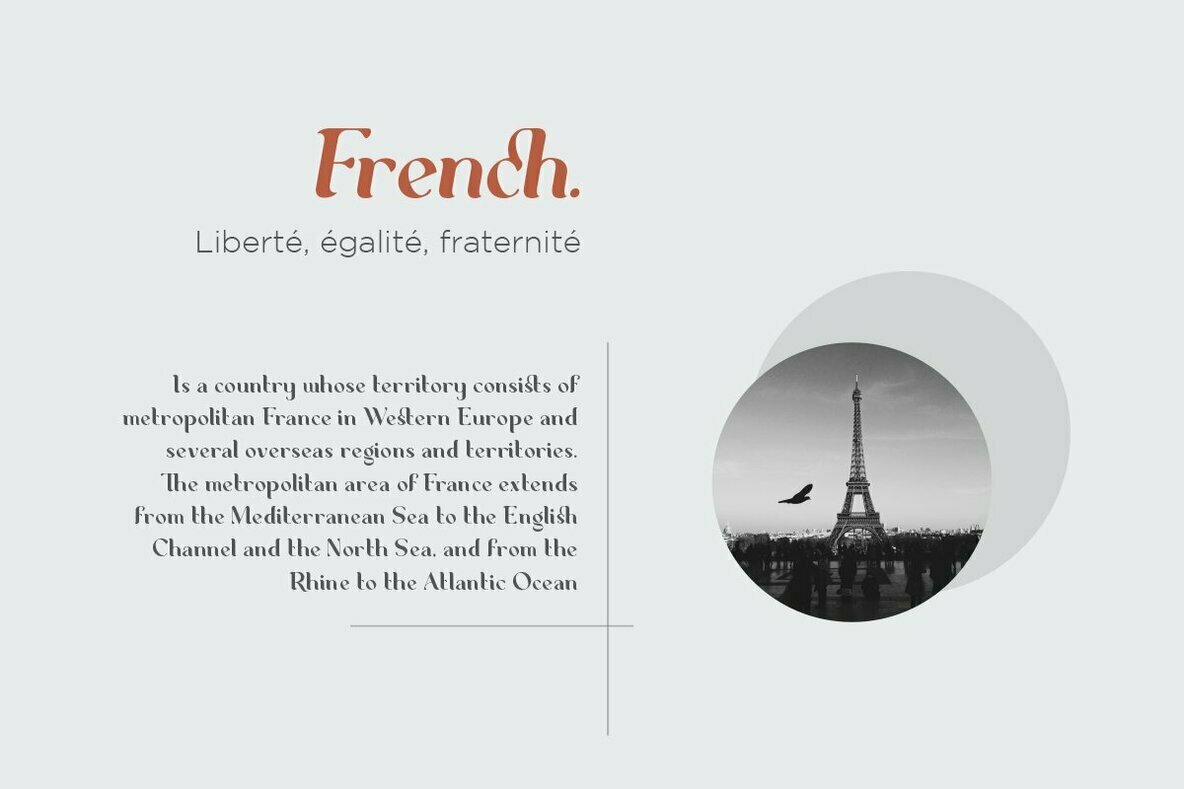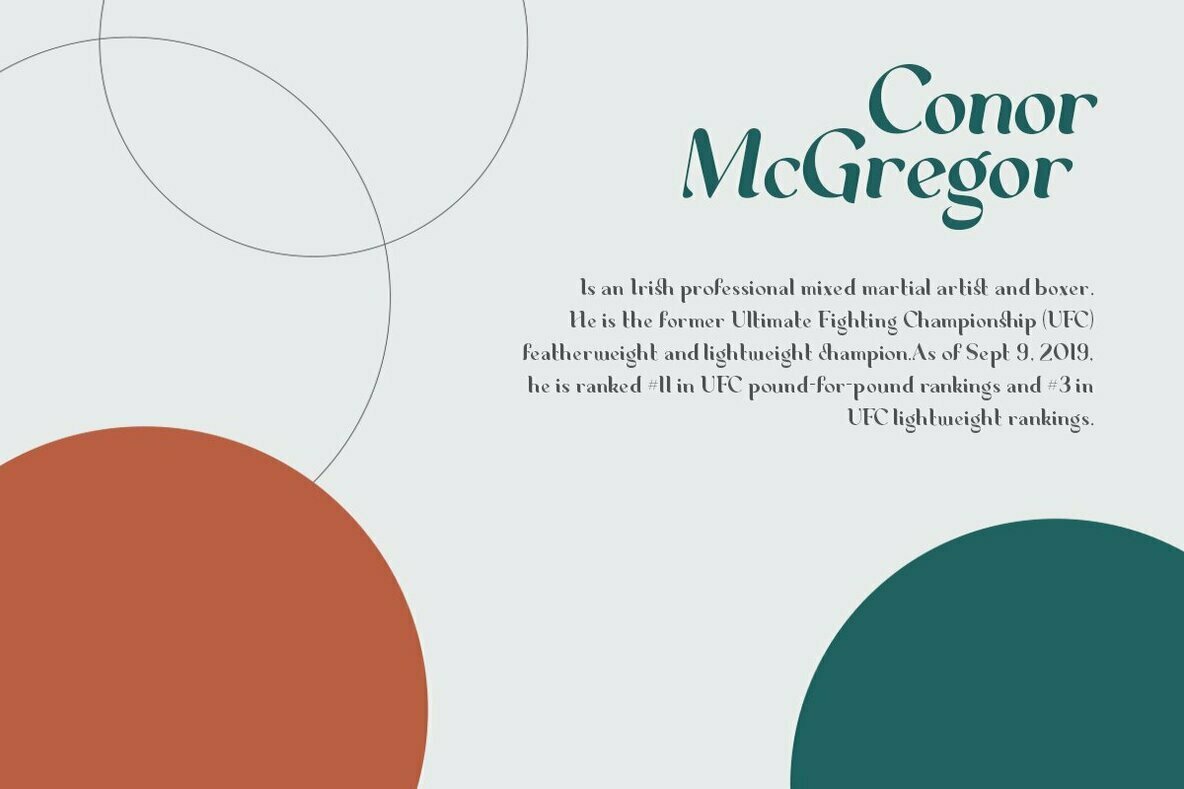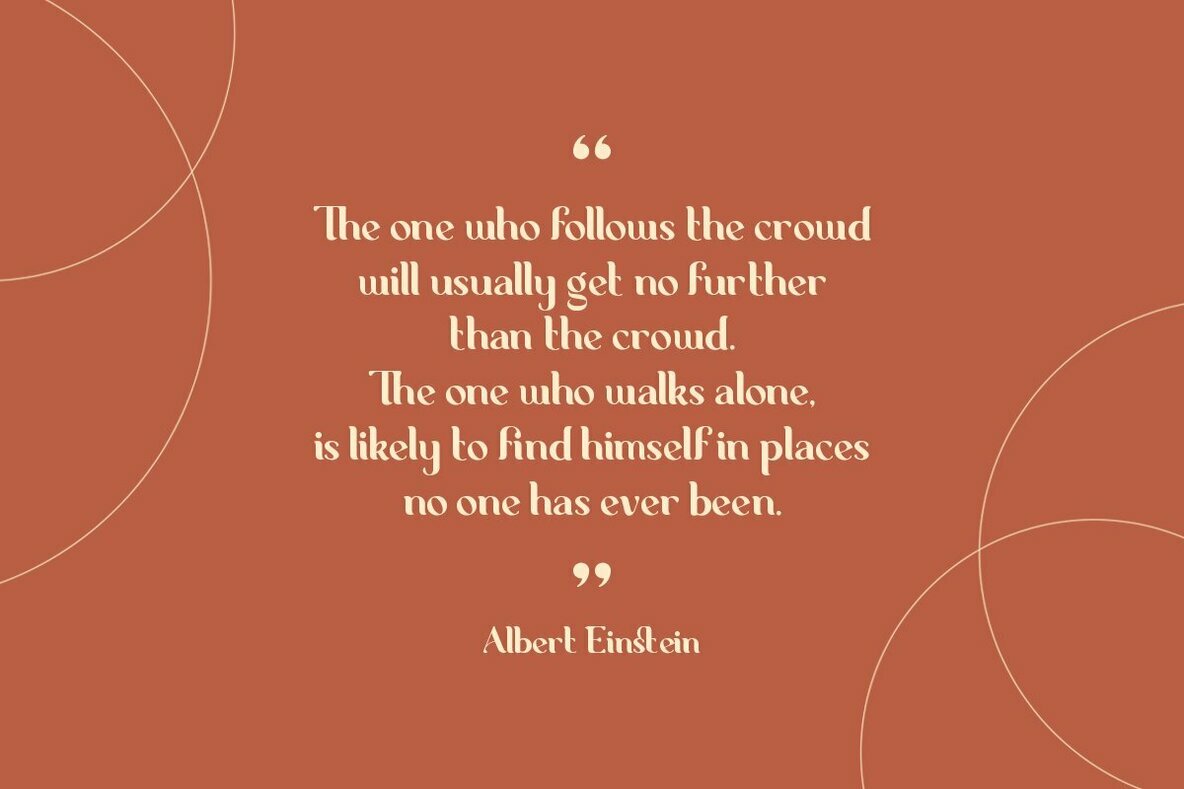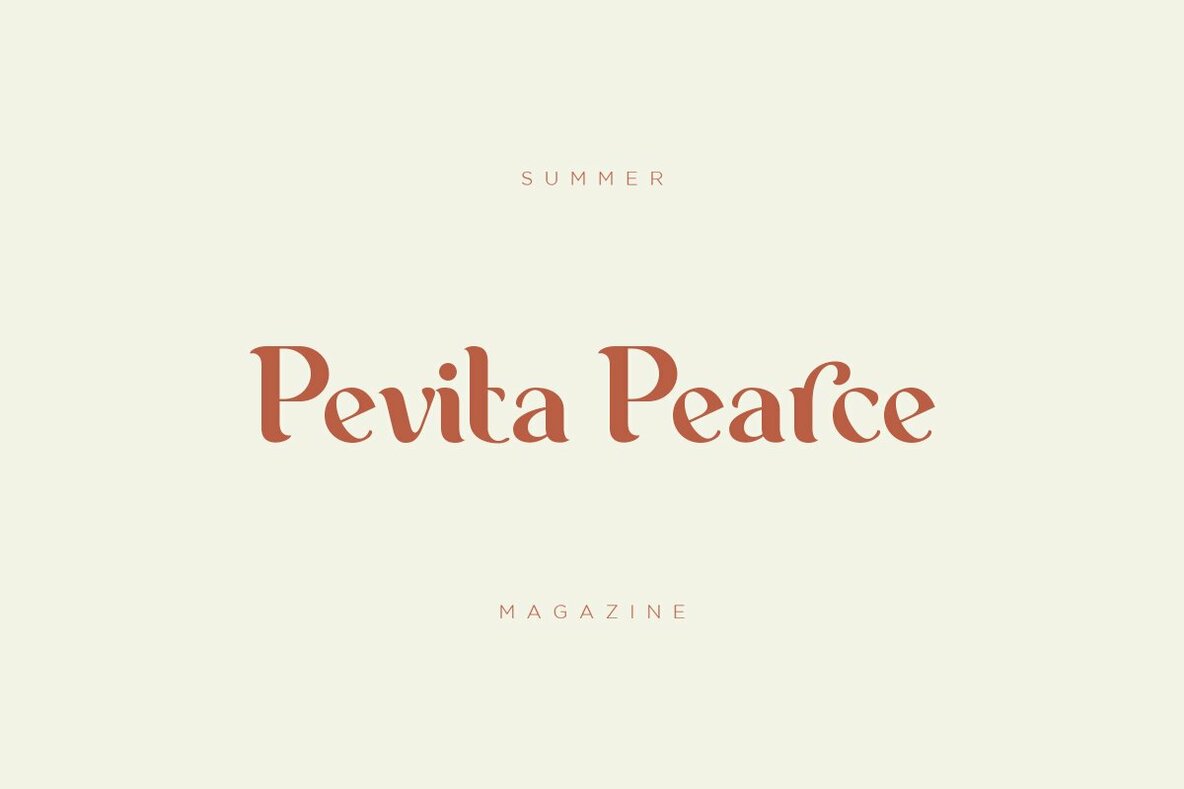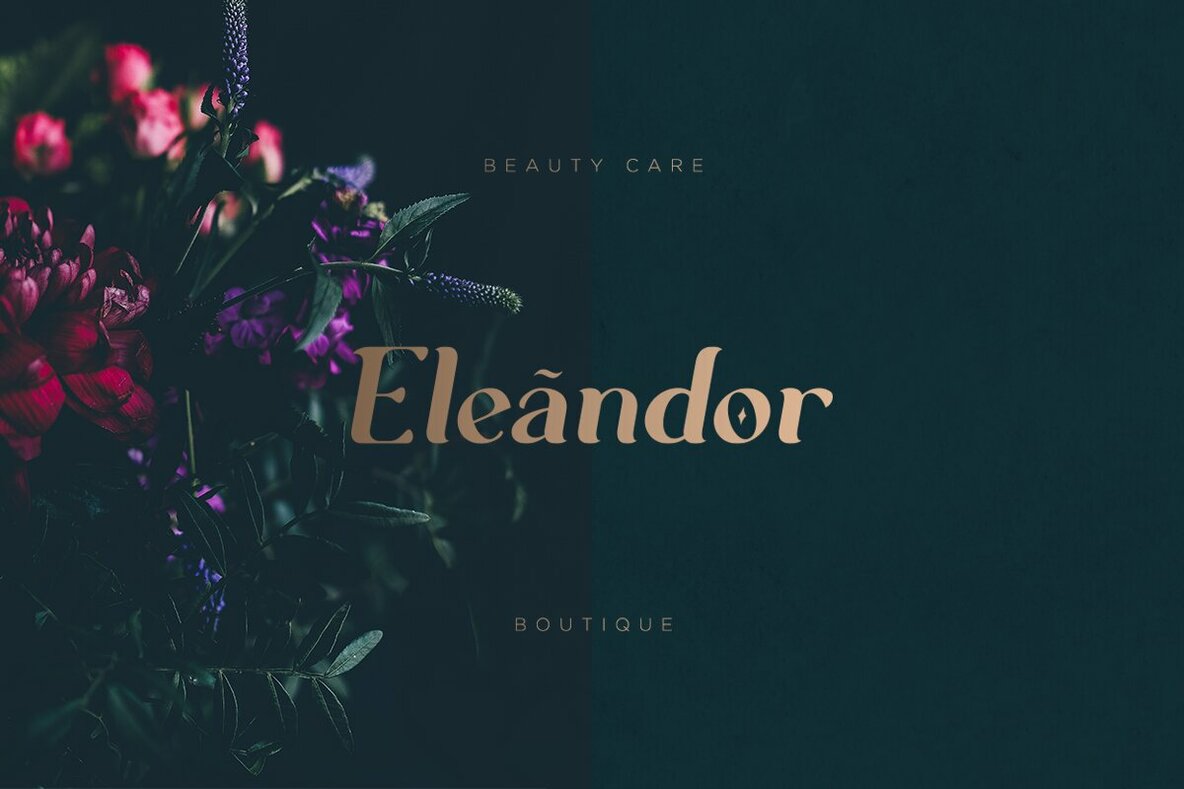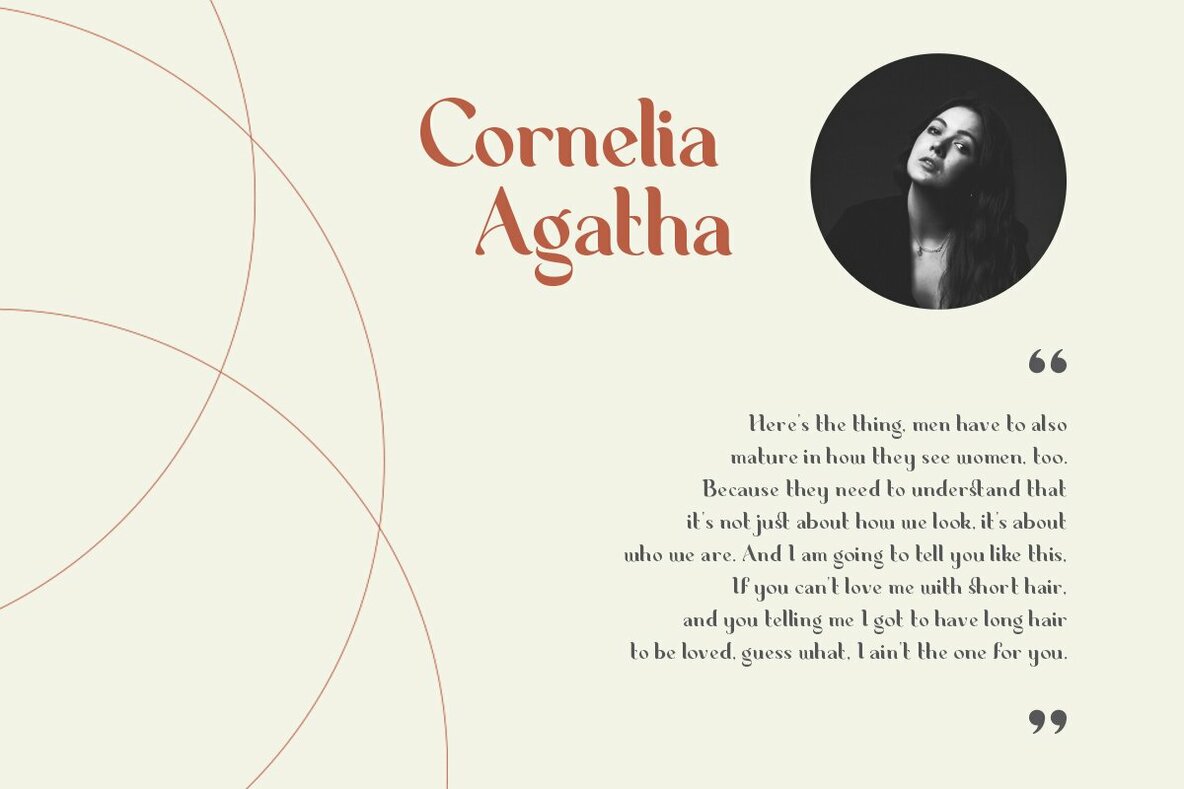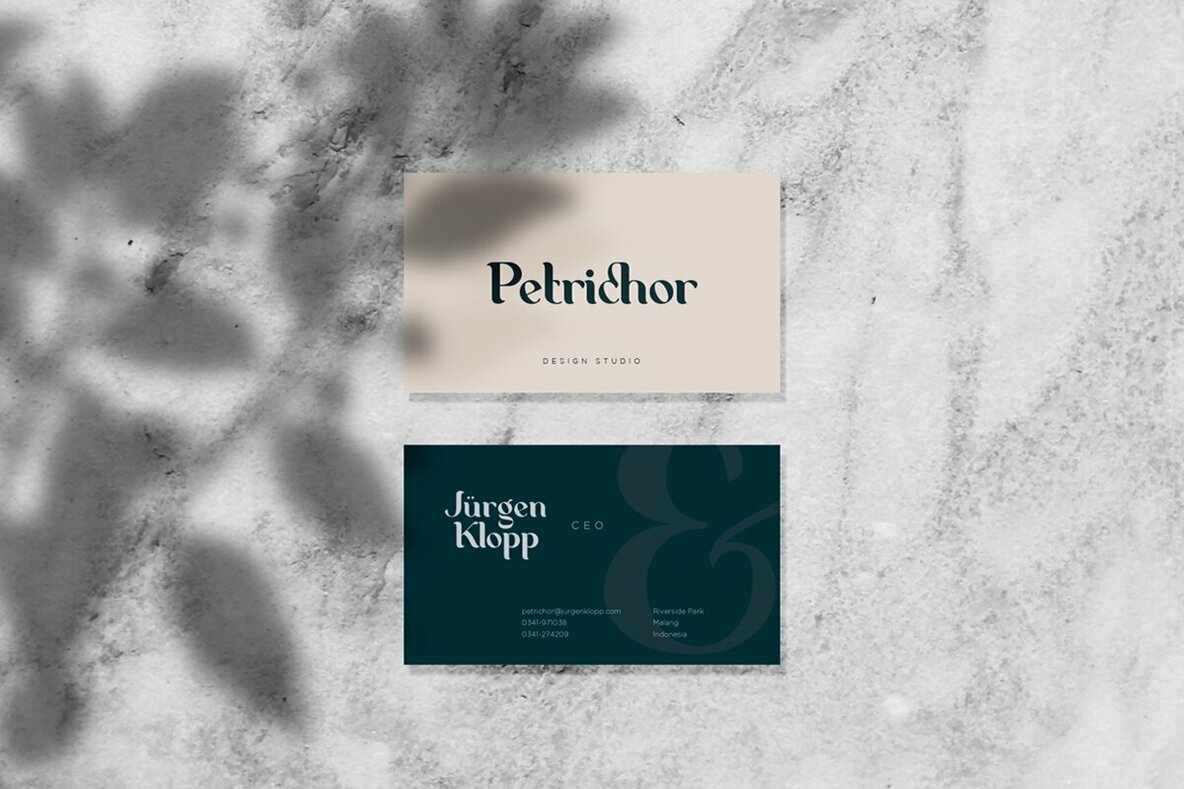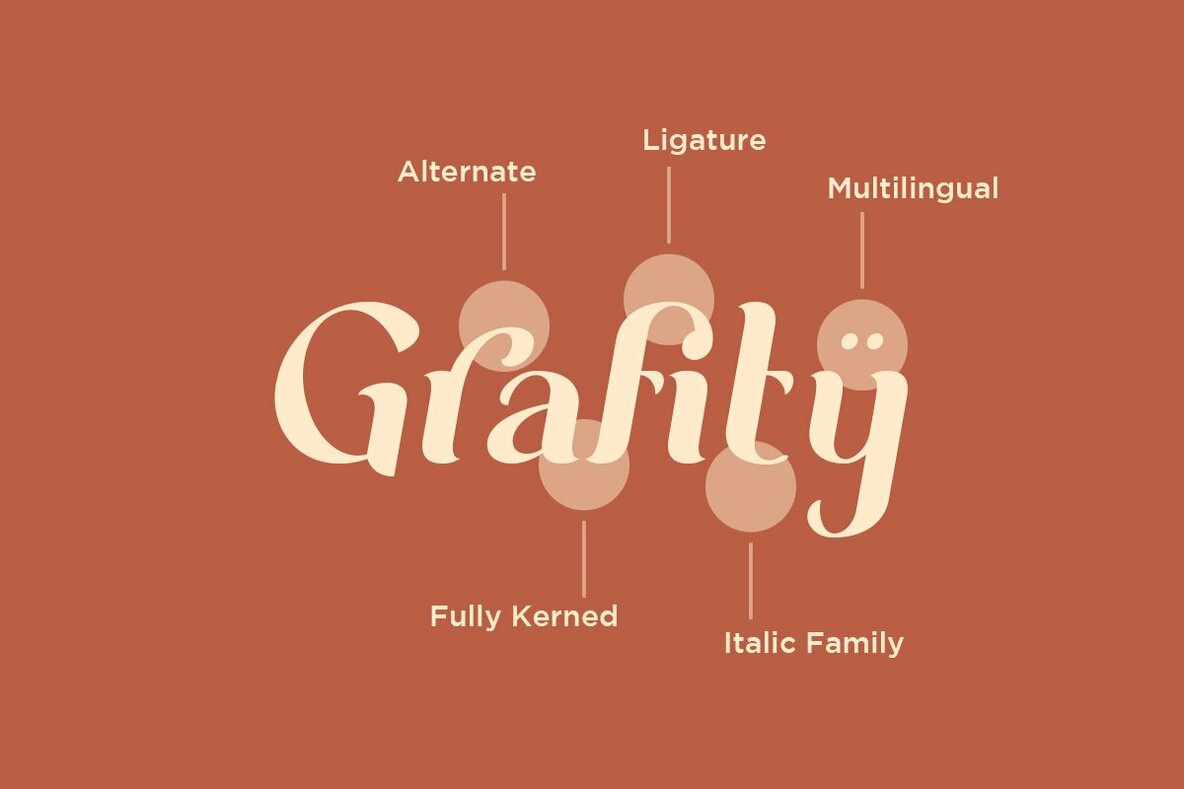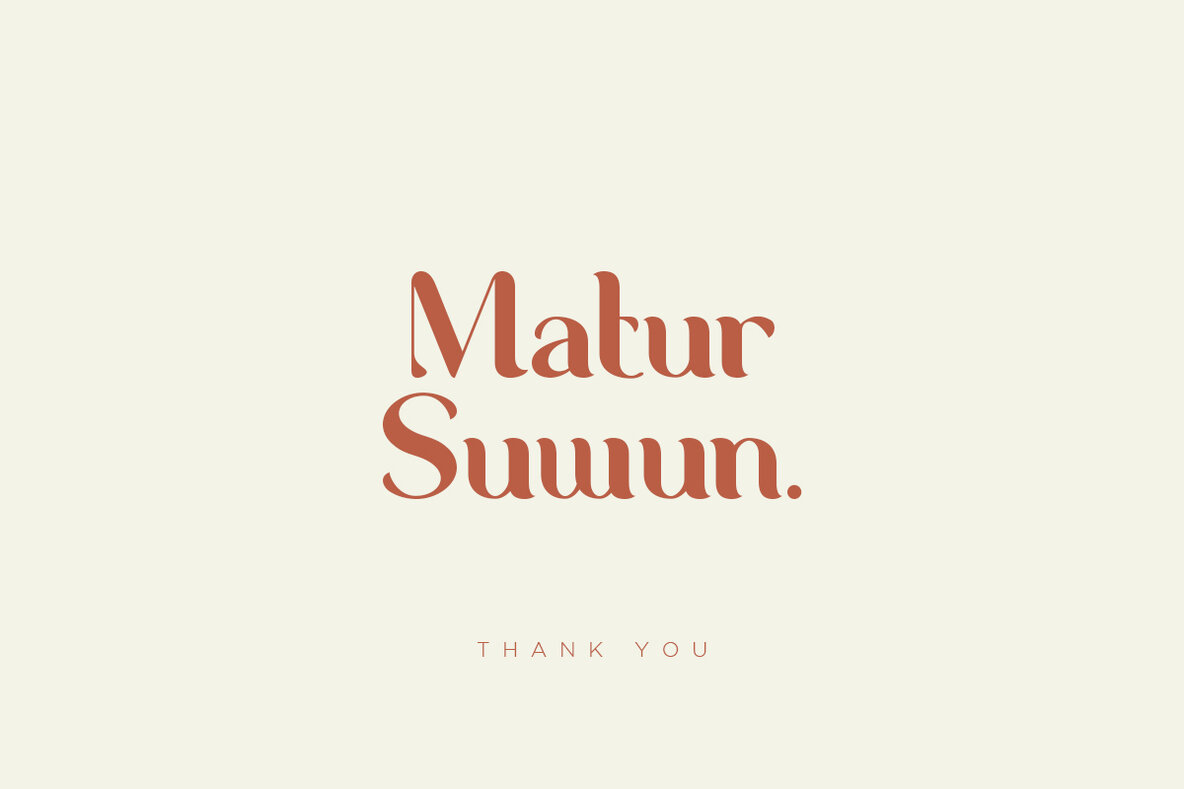
George Font
George Regular
George Italic
George is a serif typeface that embraces the charm of classic design. With its bold headlines and intricate elegance, it serves as the perfect companion for projects that call for a touch of vintage allure. The contrasting lines and curved terminals of George infuse logos, holiday cards, wedding invitations, quotes, and advertisements with a sleek sophistication. Crafted with a full suite of uppercase and lowercase letters, numerals, punctuation, and multilingual symbols, George is also equipped with OpenType features like ligatures and alternates. This ensures versatility and creativity in your designs. Languages supported include Afrikaans, Albanian, Catalan, Croatian, Czech, Danish, Dutch, English, Estonian, Finnish, French, German, Hungarian, Icelandic, Italian, Lithuanian, Maltese, Norwegian, Polish, Portuguese, Slovenian, Spanish, Swedish, Turkish, and Zulu.George: Classic Serif for Elegant Design